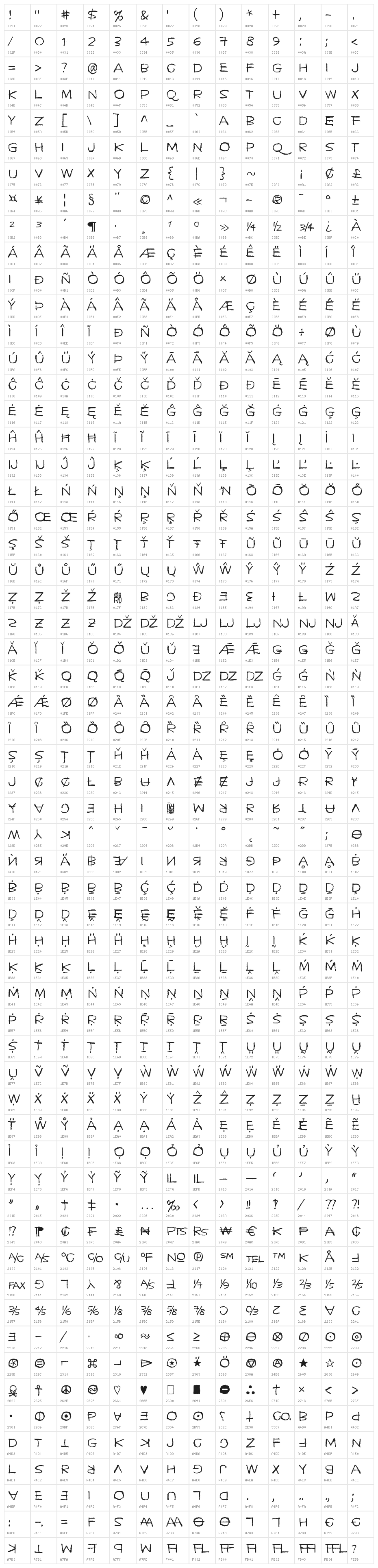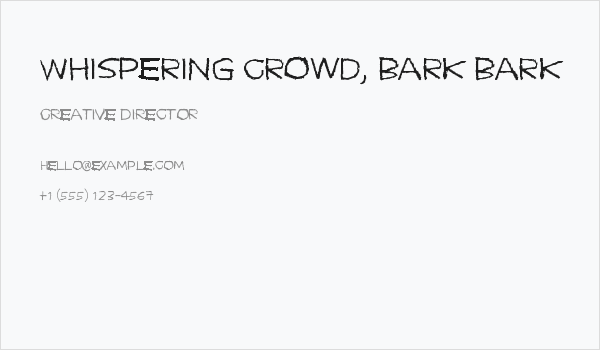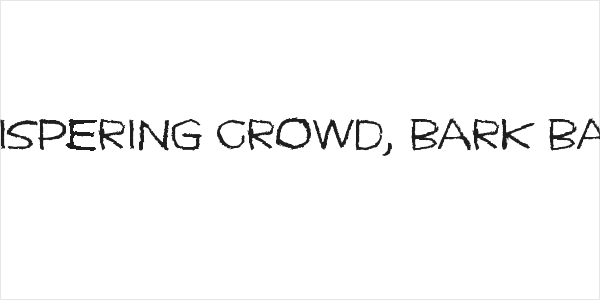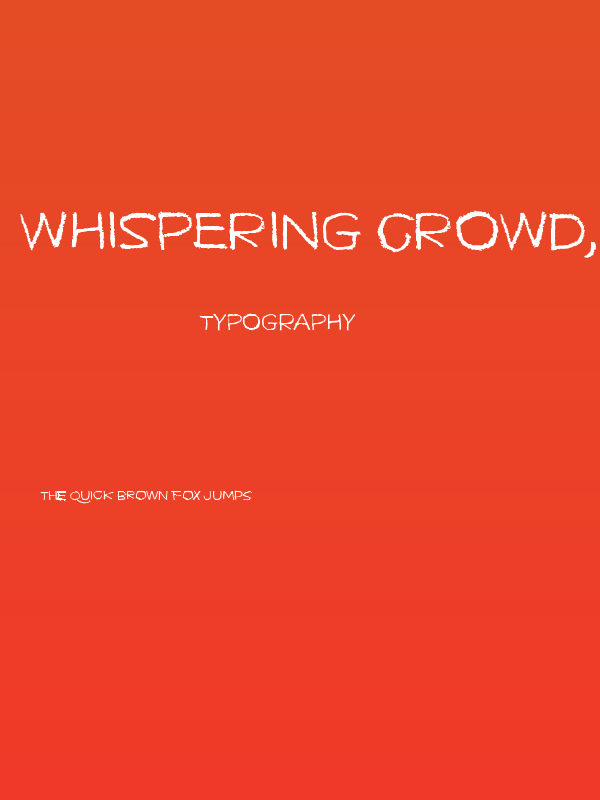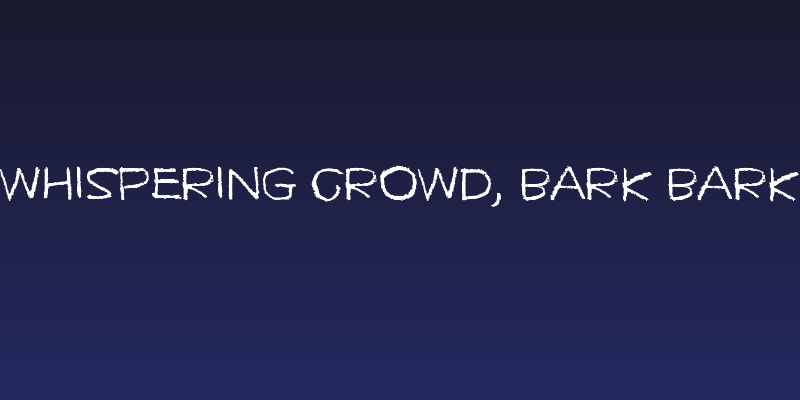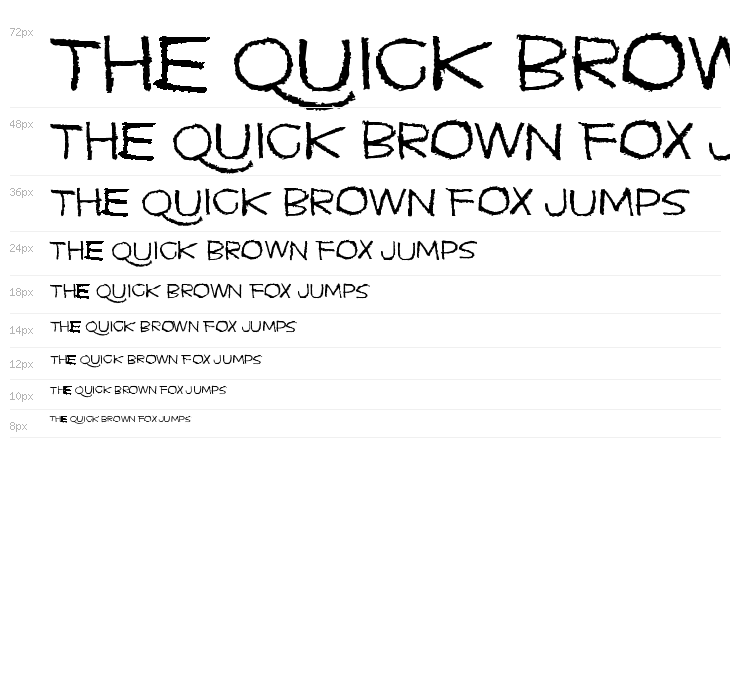
Whispering crowd, bark bark Font
Whispering crowd, bark bark Description
This font features a rough, hand-drawn style that mimics the appearance of chalk or crayon on a textured surface. The characters are irregular and slightly tilted, giving them a casual and informal feel. The uppercase and lowercase letters maintain a consistent style, with rounded edges and uneven lines that add to the playful and artistic nature of the font. Numbers and special characters follow the same design, ensuring a cohesive look across all text elements. The font's unique texture and organic appearance make it stand out, offering a distinctive option for creative projects.
| Proposed Projects | Ideal for children's book covers, playful posters, artistic branding, and educational materials. |